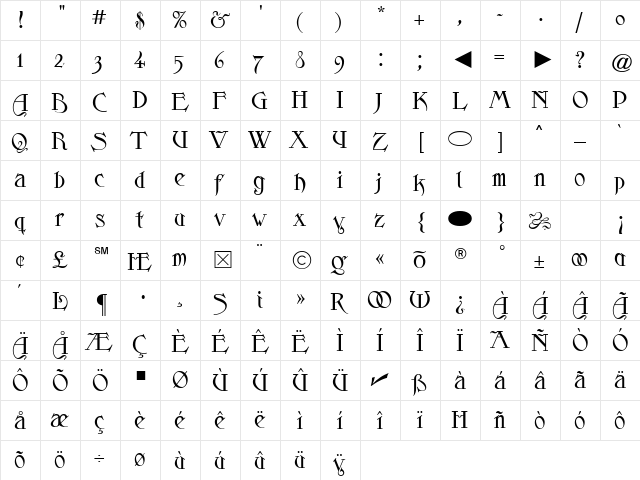
Skjald Regular Font Preview
Skjald Regular
Design Context for Skjald Typeface
Skjald is a composed and adaptable typeface that performs quietly and consistently across a wide range of design contexts.